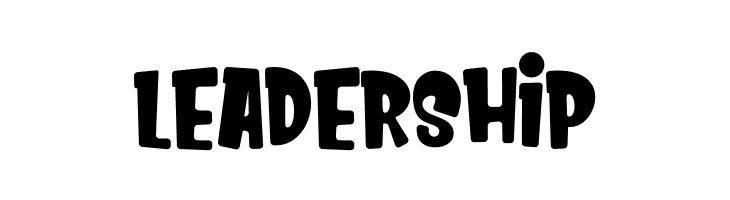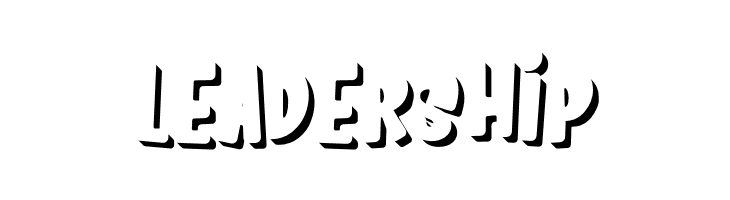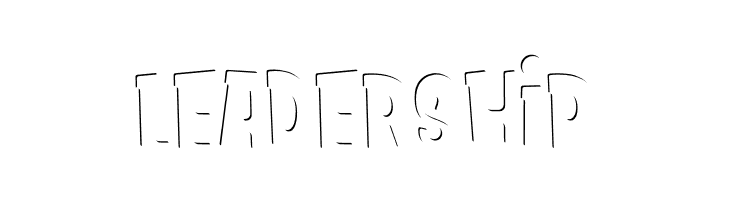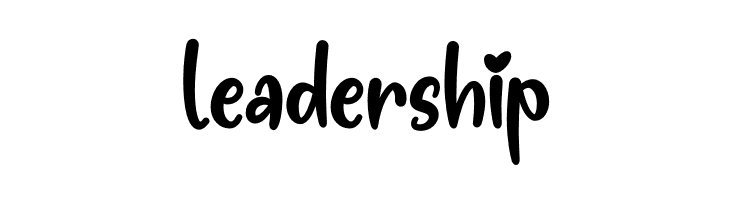
( Fonts by Eko Bimantara )
A playful, hand-drawn font with bold, textured characters.
( Fonts by Figuree Studio )
A playful, bold font with a whimsical, hand-drawn style.
( Fonts by Pinisiart )
A playful, bold font with an outlined style, perfect for engaging and fun designs.
( Fonts by Supersemar Letter )
A playful, handwritten font with a lively and informal style.
( Fonts by Haris Prawoto )
( Fonts by Ahmad Muslimin )
A playful, bold font with rounded, thick strokes and a whimsical touch.
( Fonts by Ahmad Muslimin )
A playful, bold font with rounded, bubbly characters.
( Fonts by Lettersweet Studio )
A playful, bold font with rounded, bubbly characters and decorative elements.
( Fonts by Display Studio )
A playful, hand-drawn font with a whimsical and creative style.
( Fonts by Display Studio )
A playful, handwritten italic font with a lively and dynamic style.
( Fonts by Display Studio )
A playful, hand-drawn outline font with whimsical elements and a casual style.
( Fonts by Creatype Studio )
A playful, bold font with rounded, thick strokes and a whimsical style.
( Fonts by Nirmala Graphics )
A playful, hand-drawn font with bold, uneven strokes and whimsical character shapes.
A playful, hand-drawn font with bold, irregular strokes and quirky characters.
( Fonts by Jujun Gag )
A playful and bold typeface with a whimsical, chunky design.
( Fonts by Studio Hello Good )
A playful, bold font with rounded edges and a friendly, approachable style.
( Fonts by Erik Studio )
Playful, rounded sans-serif with a hand-drawn, friendly look.
( Fonts by Joseph Dawson )
A bold, playful font with a distressed, hand-cut appearance.
( Fonts by Joseph Dawson )
A bold, playful font with a distressed texture and chunky, irregular characters.
( Fonts by Joseph Dawson )
A bold, distressed, and playful font with a rugged appearance.
( Fonts by Joseph Dawson )
A bold, italicized font with a distressed, playful style.
( Fonts by Joseph Dawson )
A bold, textured, and slightly italicized font with a playful, vintage feel.
( Fonts by Joseph Dawson )
A bold, italicized font with a playful, textured style.
( Fonts by Kong Font )
A playful, rounded font with a hand-drawn, whimsical style.
( Fonts by Mr.Soon Design )
A playful, donut-inspired font with bold, rounded letters and dripping icing details.
( Fonts by Kong Font )
A playful, bold typeface with rounded edges, ideal for children's projects.
( Fonts by Wildan Type )
A playful, hand-drawn font with bold, rounded characters and a whimsical style.
( Fonts by Inermedia Studio )
A playful, bold, and bubbly font ideal for children's content.
( Fonts by Pandan Wangi )
A playful, bold, hand-drawn font with rounded, whimsical characters.
( Fonts by Creatype Studio )
A playful and whimsical font with dynamic strokes and charming irregularities.
( Fonts by Creakokun Studio )
A playful, bold, and hand-drawn font with a lively, rounded style.
( Fonts by Pizzadude )
A playful, hand-drawn font with bold, rounded characters and a whimsical style.
( Fonts by One Design )
A playful, hand-drawn outlined font with a whimsical and friendly style.
( Fonts by Kong Font )
A playful, bold font with thick, rounded letters and a whimsical style.
( Fonts by Graphix Line Studio )
A playful, bold, hand-drawn font with rounded characters.